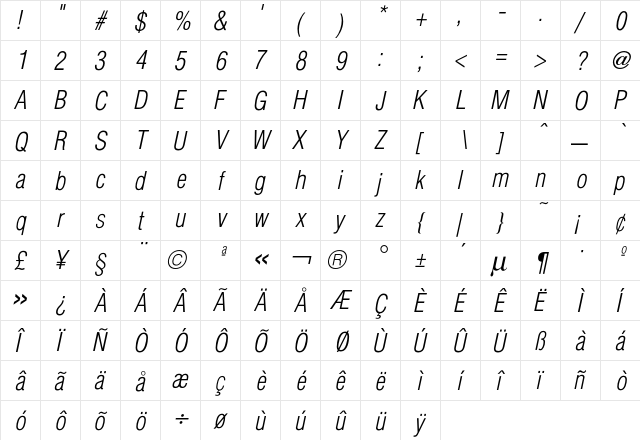
Hallmarke CondLightOblique Font Preview
Design Context for Hallmarke Typeface
Hallmarke offers clean, dependable letterforms without strong stylistic allegiance, making it a practical choice for designers who need flexibility. The dynamic lean of this cut emphasises speed and emphasis in any layout. The delicate stroke weight brings airiness and refinement to layouts. The condensed width makes it efficient for tight spaces without sacrificing legibility.
Pro Tip: Use Hallmarke for emphasis, pull quotes, and subheadings where its slanted energy can add rhythm to the layout.